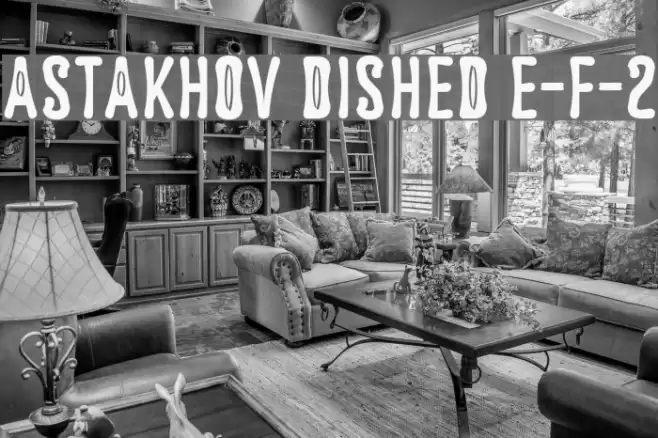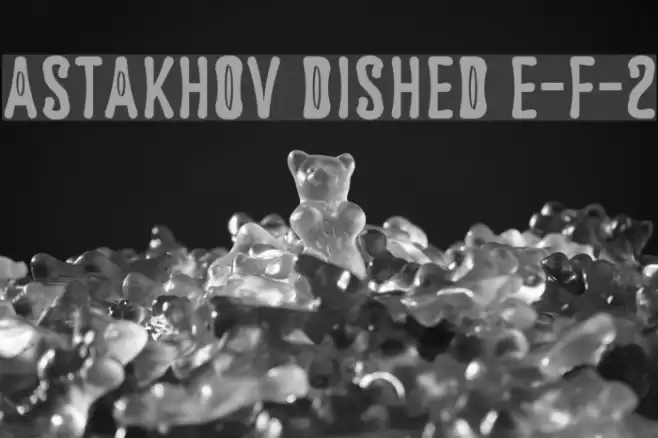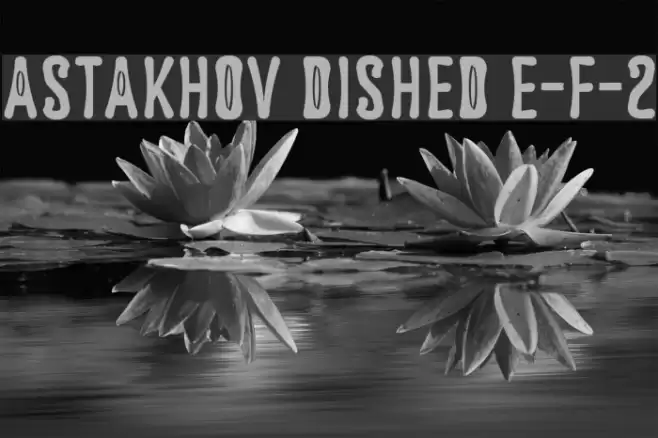
Astakhov Dished E-F-2 Font
Astakhov Dished E-F-2 Description
This font features a bold and playful design with a distinctive, hand-drawn appearance. The characters are slightly irregular, adding a whimsical and artistic touch. The uppercase letters are particularly eye-catching, with unique shapes and varying stroke widths that create a dynamic visual rhythm. The lowercase letters maintain this playful style, ensuring consistency across the typeface. Numbers and special characters are designed with the same boldness and creativity, making them stand out in any composition. This font is perfect for projects that require a fun and engaging aesthetic.
A bold, playful font with a hand-drawn, whimsical style from Uncategorized fonts.
- Proposed Projects: Ideal for children's books, playful branding, posters, and creative invitations.
- Overall Style: Playful, Artistic